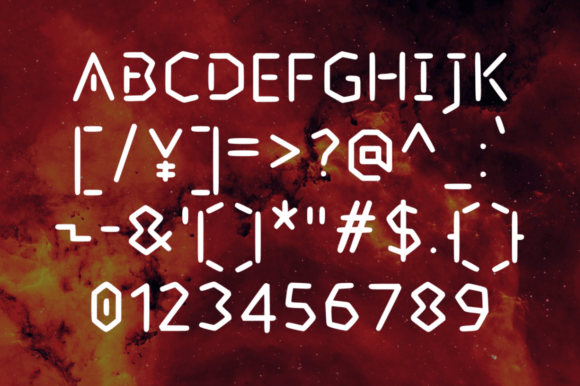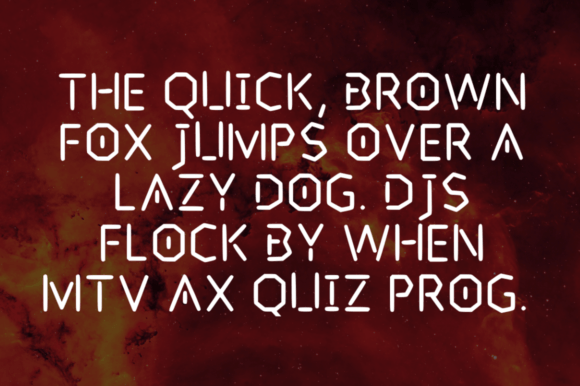
Introducing Astro Script Font: Your Gateway to Cosmic Creations
Have you ever been in the middle of a design project, and suddenly, you’re struck by a creative block? You’re not alone. I recall working on a sci-fi themed poster, struggling to find the perfect font that could transport my audience to another galaxy. That’s when I stumbled upon the Astro Script Font. Inspired by the vastness of space, aliens, and galaxies, this font brings a celestial touch to your projects, infusing them with an otherworldly charm that’s both captivating and unique.
Unleashing Creativity with Astro Script
Imagine being able to capture the essence of distant galaxies and cosmic wonders in your designs. With Astro Script, you can elevate your creativity and add an extraterrestrial flair to your projects, whether you’re crafting sci-fi stories, event posters, or digital art.
An Honest Review: The Good, the Bad, and the Quirky
- ✨ Unique and captivating design that’s perfect for sci-fi and space-themed projects
- 🌠 Extensive range of glyphs and OpenType features, allowing for creative experimentation
- 👽 Perfect for adding an extraterrestrial touch to your designs
While Astro Script is an amazing font, there are a few things to keep in mind:
- ⚠️ Some characters may require manual kerning for optimal spacing
- 🤔 Limited suitability for body text, as it’s primarily designed for display purposes
The Designer Inspiration Behind Astro Script
The Astro Script font was inspired by the wonders of the cosmos and the infinite possibilities of space exploration. The designer, a self-proclaimed space enthusiast, aimed to create a font that would capture the essence of the galaxy and bring it to life in various design projects.
| Font Name | Astro Script Font |
| Author | Tea fonts |
Q: What type of projects is Astro Script best suited for?
A: Astro Script is perfect for sci-fi themed projects, event posters, digital art, and any design that requires a celestial or extraterrestrial touch.